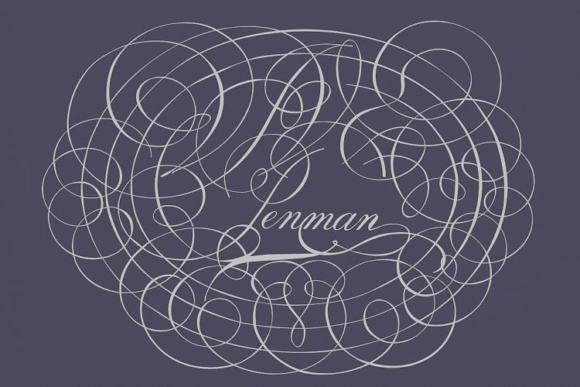
Penman Font
About Penman Font
Indenture English Penman (or Penman, for short) is a script font that looks stunning in a wide array of projects and styles. This font has a traditional and ornate look, so it works well to give your projects a more thoughtful and detailed look.